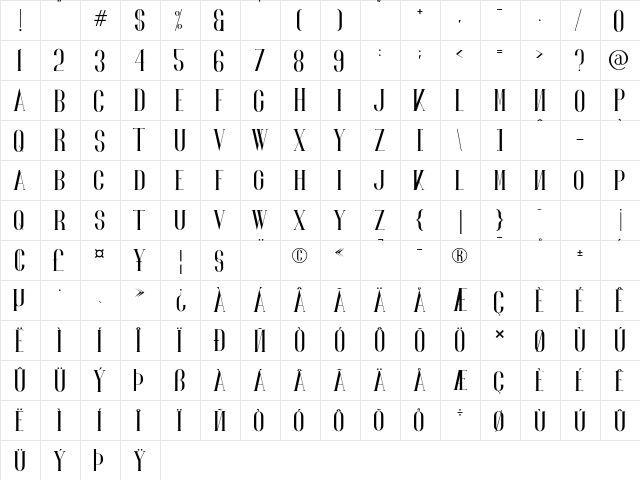
NORLAND Regular
| Designer | Gilar Studio |
Design Context for NORLAND Typeface
NORLAND offers clean, dependable letterforms without strong stylistic allegiance, making it a practical choice for designers who need flexibility.